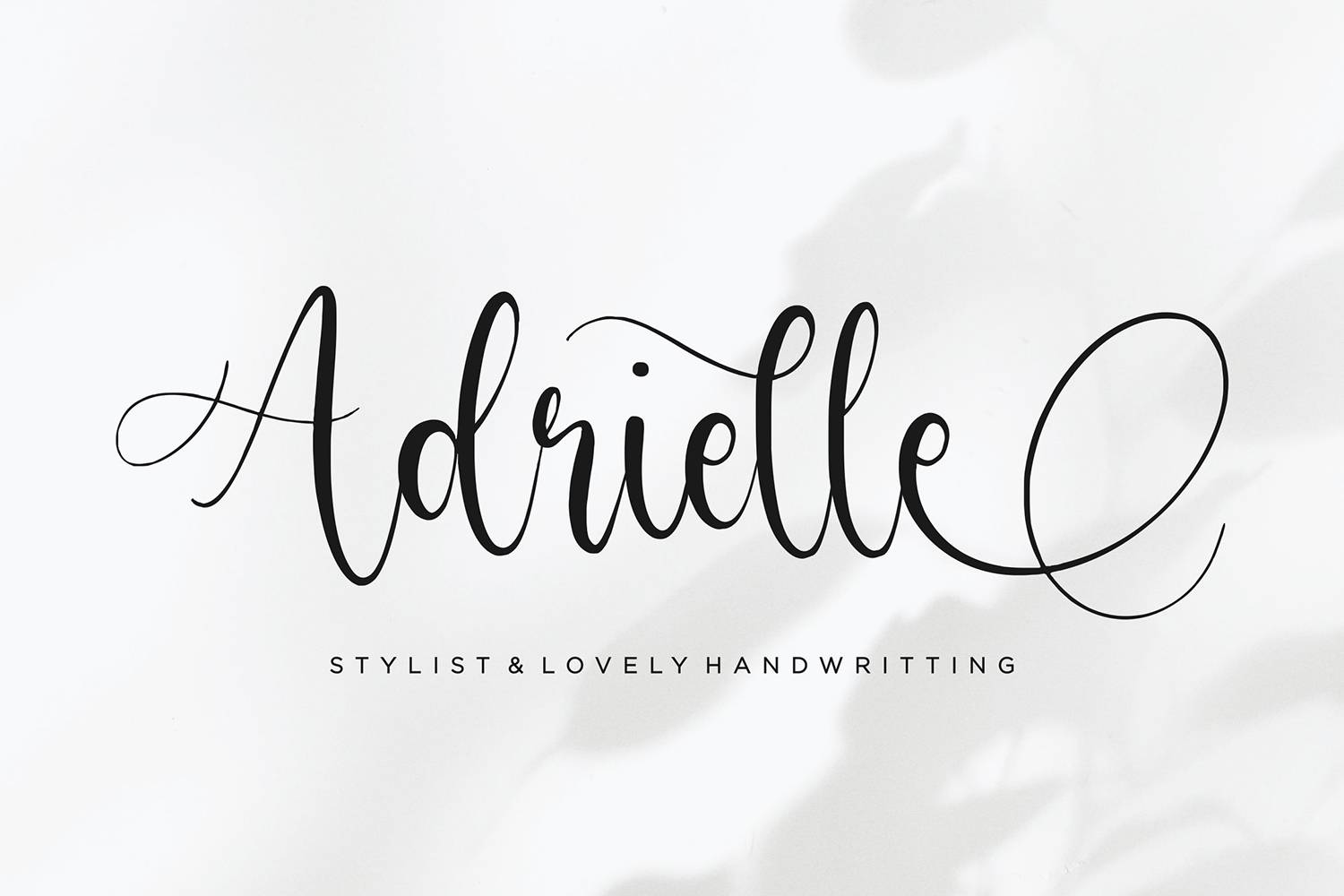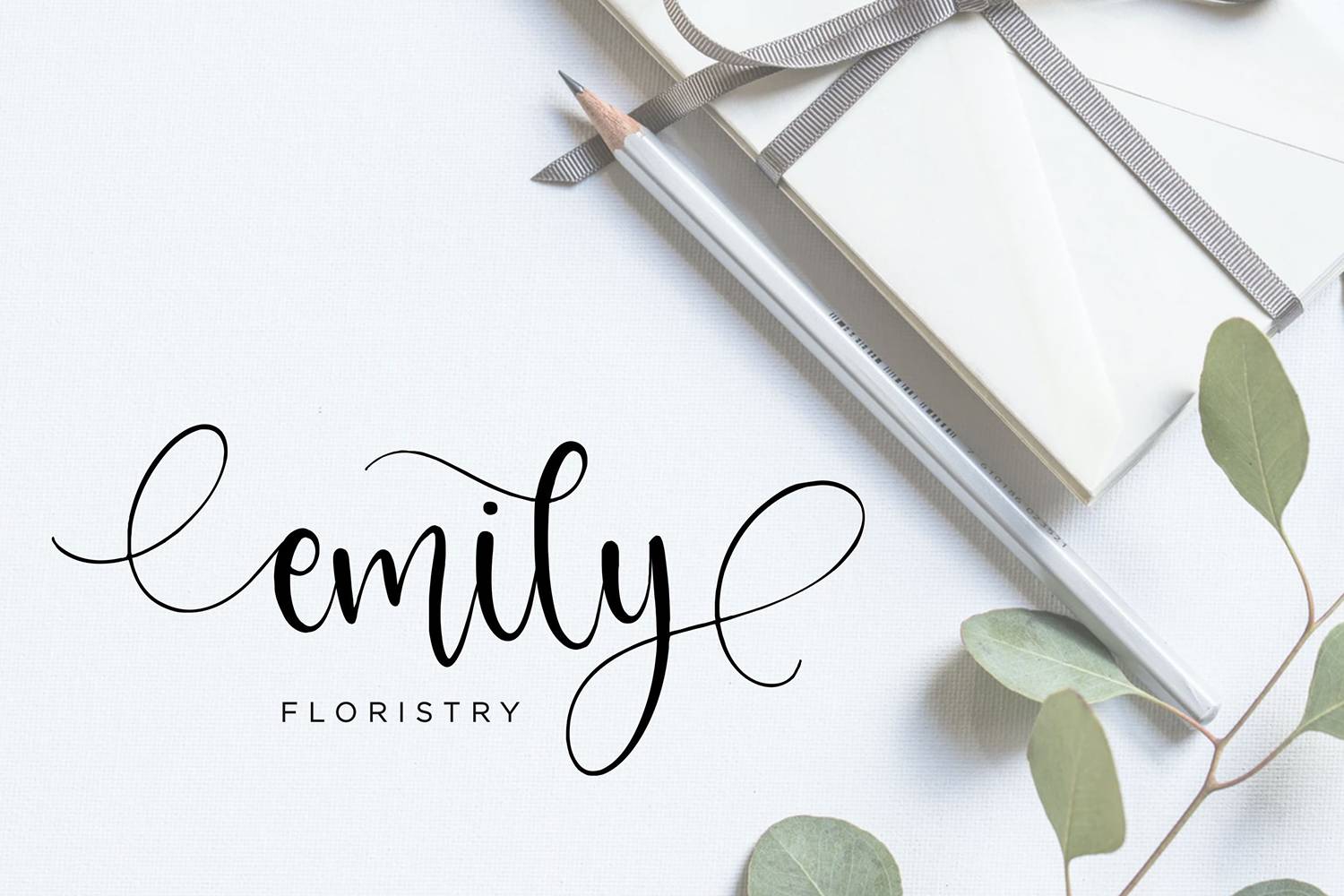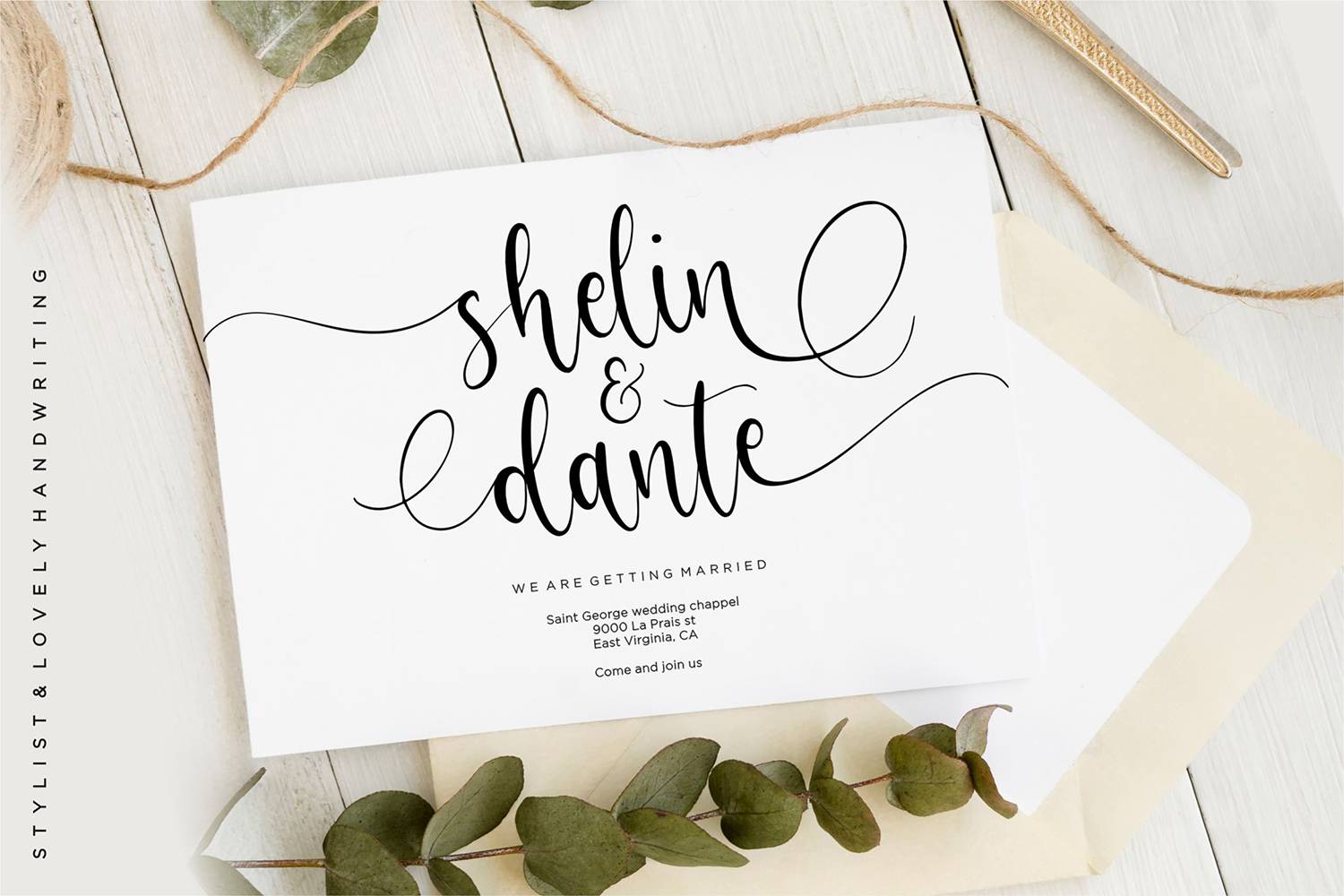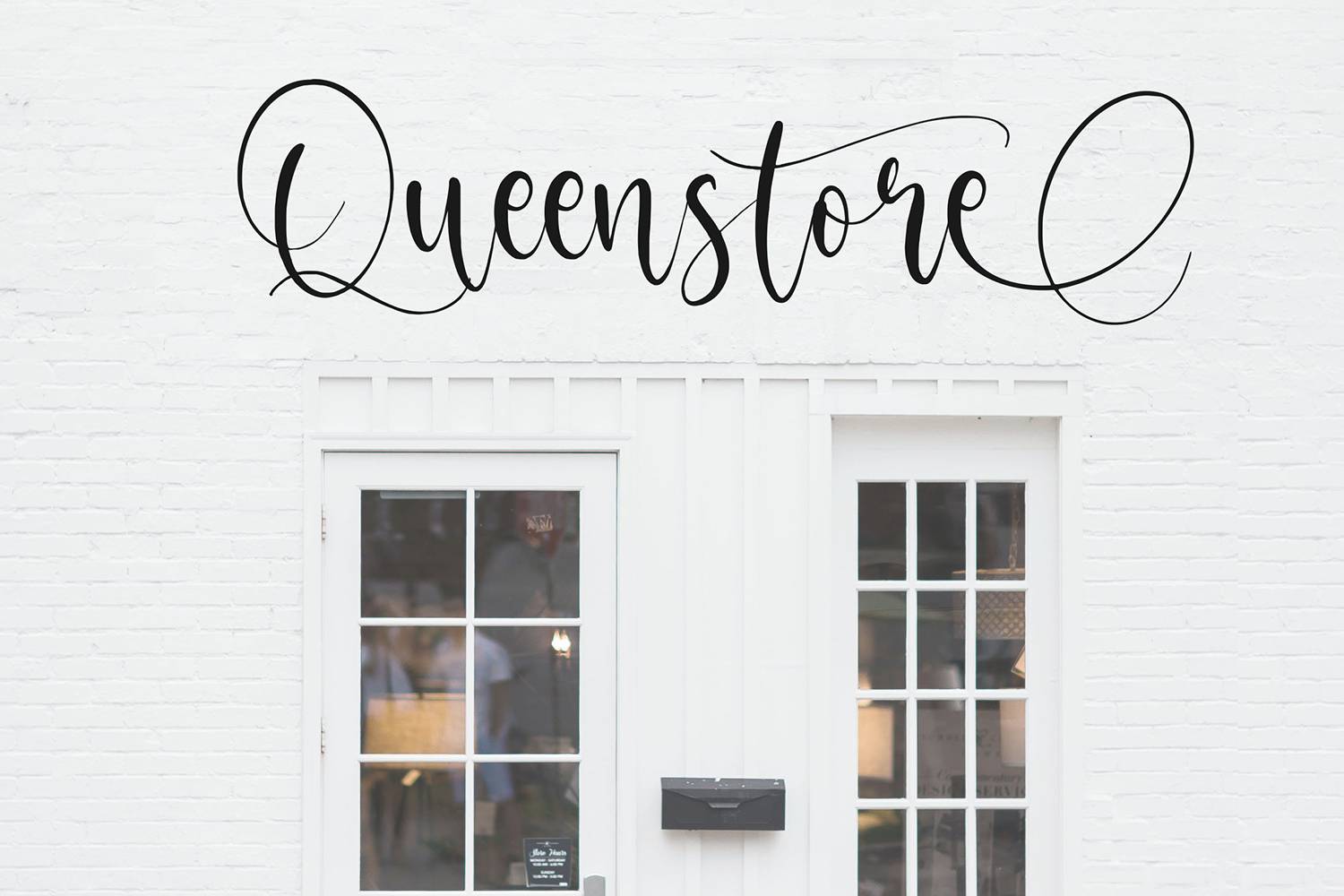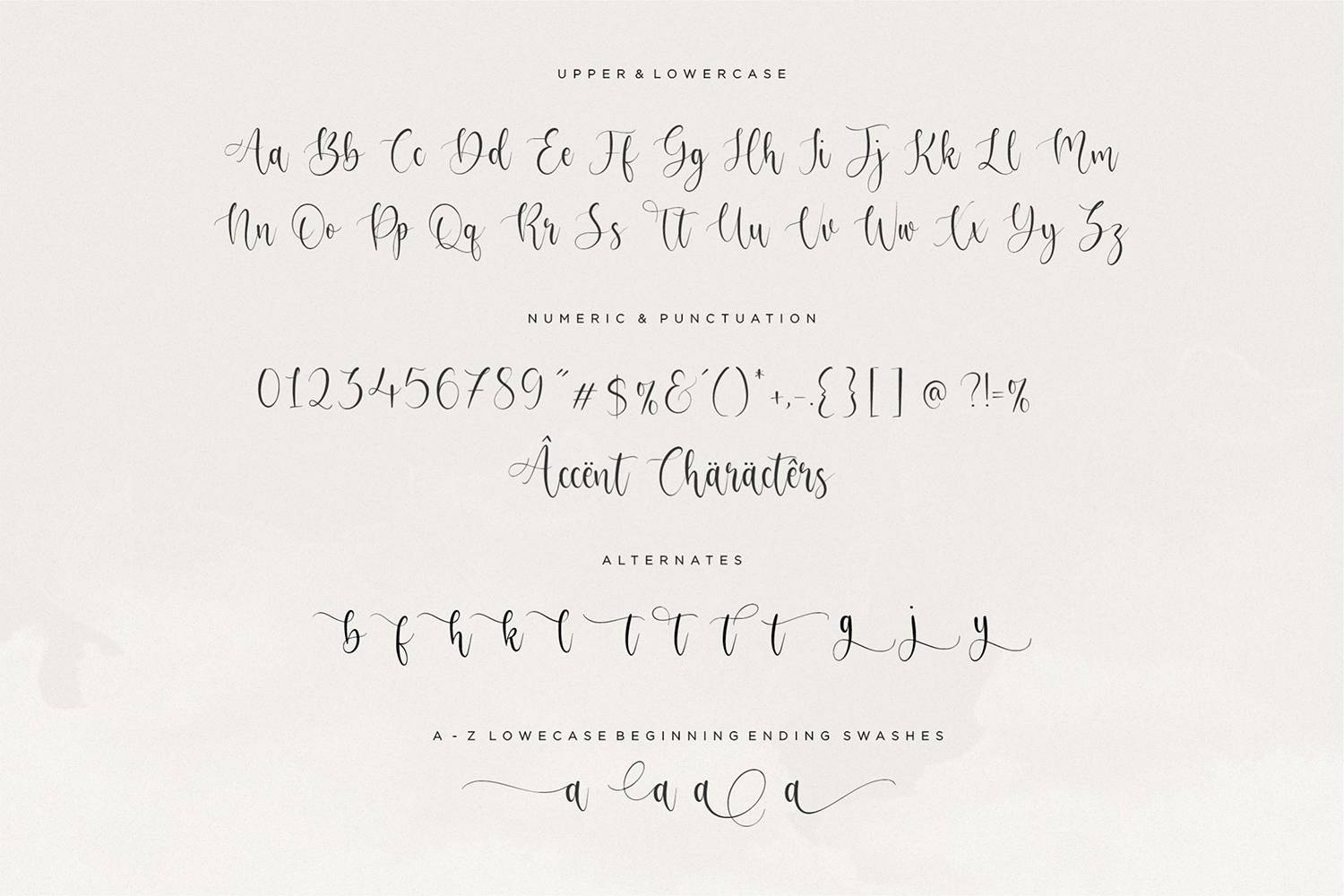
Adrielle is an elegant, delicate script font with high contrast between thin and thick strokes, featuring graceful, flowing letterforms and charming swashes. Its slender, airy design conveys a romantic and sophisticated personality, making it perfect for wedding invites, luxury branding, and feminine editorial projects. The font’s stylish script style adds a refined, artistic touch to headlines and decorative text.
Adrielle Font
About Adrielle Font